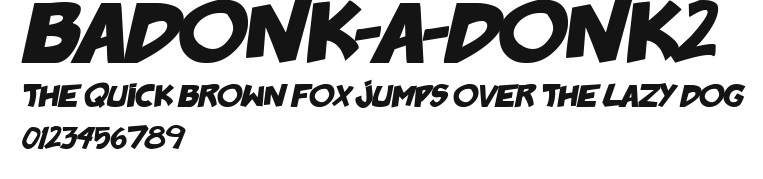
• Font Name: badonk-a-donk2
• Font ID: badonk-a-donk2 Bold Italic:Version 1.00
• Full Font Name: badonk-a-donk2 Bold Italic
• Version: Version 1.00 March 27, 2016, initial release
• PostScript Name: badonk-a-donk2-BoldItalic
• Character Count: 242
About badonk-a-donk2.otf
badonk-a-donk2.otf is a modern, elegant sans-serif font designed for ultimate readability and visual harmony. Perfect for branding, headlines, web design, and print materials.